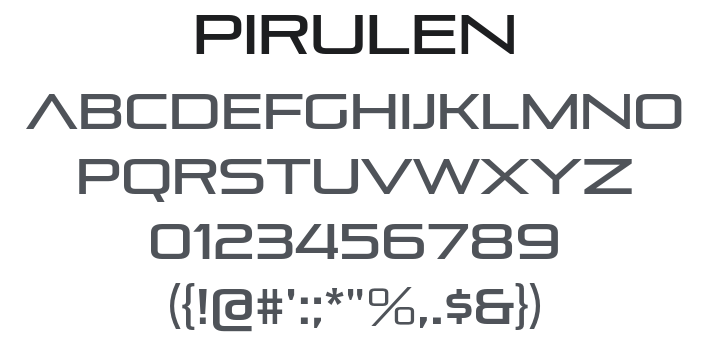
Pirulen Font
About Pirulen
Pirulen reimagines the squared geometry of Bank Gothic for a new era of digital and cinematic design. Its clean lines and sharp edges project a sense of engineered control, suited to futuristic interfaces, game titles, and tech branding. Six weights with italics span from minimal readouts to heavy display use, while alternates like the barred “A” and lambda-style “Λ” add a subtle sci-fi signature.